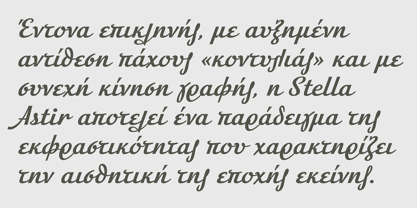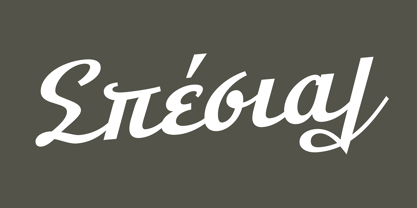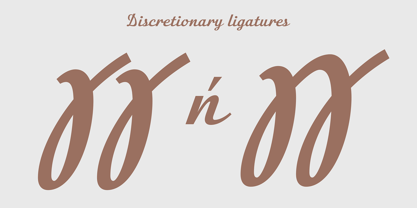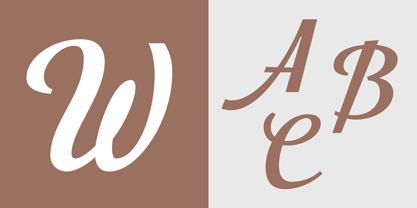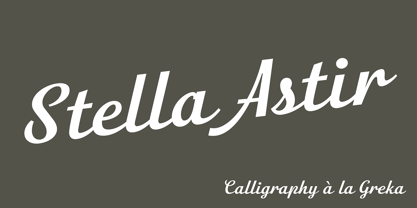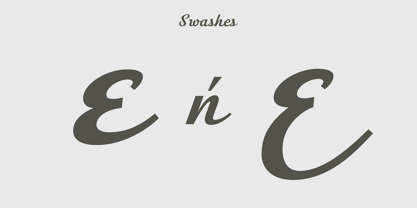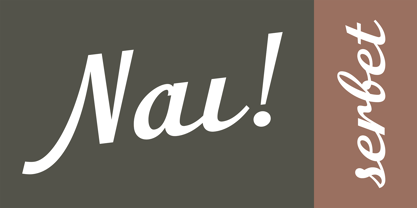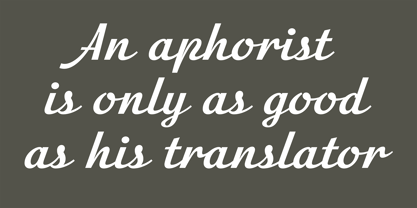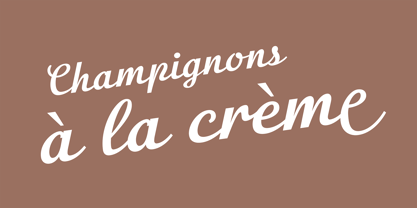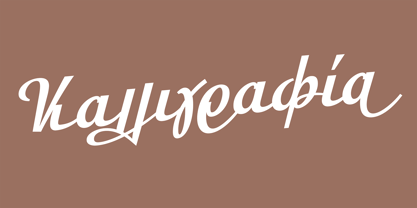
Stella Astir
by Fonts.GR
The Stella Astir Font Family was designed by Panos Haratzopoulos, Yannis Karlopoulos and published by Fonts.GR. Stella Astir contains 1 styles. More about this family
Stella Astir is a typeface inspired by the models of greek calligraphy & lettering that were widely used on sign-making and advertising after the war and throughout the fifties, sixties and early seventies. It has a significant slant and a quite high thick-thin contrast in a fine resemblance of that old-style expressive craftsmanship.
Stella Astir is part of Stella Project - Calligraphy à la greka, an attempt to study the forgotten art of greek calligraphy that flourished from the ’50s through the ’70s – an indirect conversation with the colleagues of the past. It’s a study on the tools and techniques of the time, a work of classification, documentation and adaptation of these special styles to modern media and communication tools.
Designers: Panos Haratzopoulos, Yannis Karlopoulos
Foundry: Fonts.GR